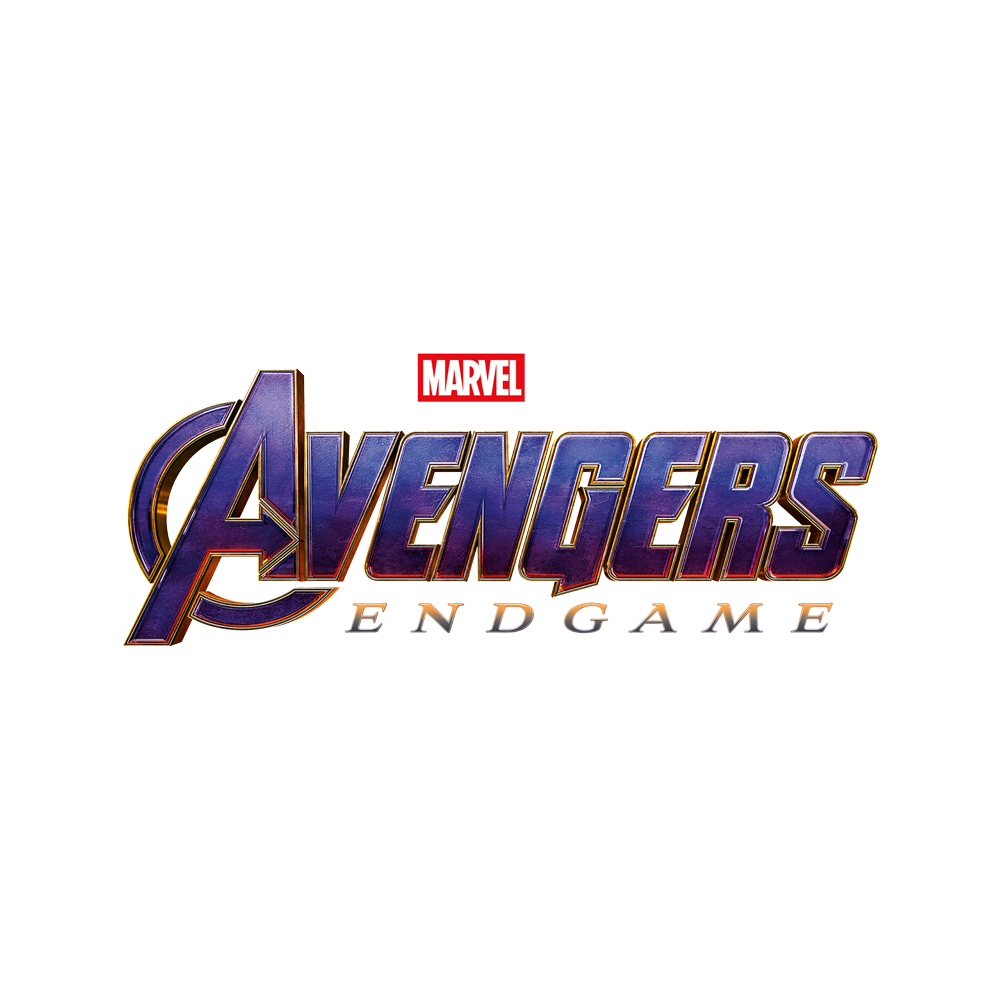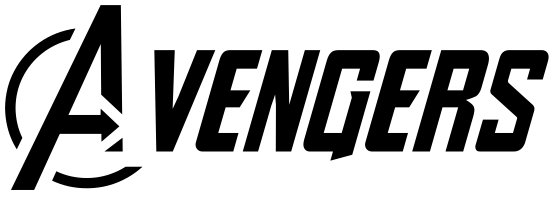
Avengers Endgame Font
ActionAvengers: Endgame is a 2019 American superhero film based on the Marvel Comics superhero team the Avengers. The movie shows the Avengers and their allies trying to undo the damage caused by Thanos.
The font used for the Avengers logo was custom built however FontGet has replicated it with Avengers Font which is licensed as free to use. The "ENDGAME" part uses a font called Aviano Bold by Insigne and it continues to be used as the subtitle typeface, but this time in an italicized version.